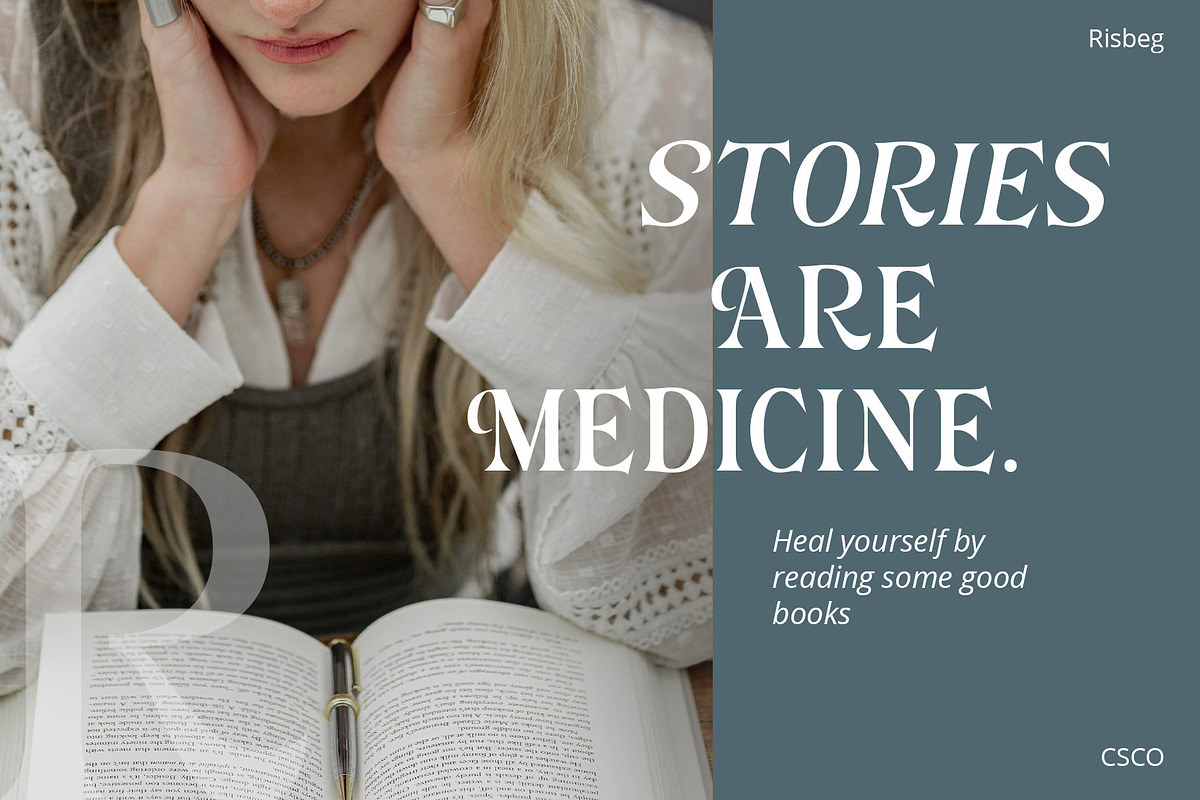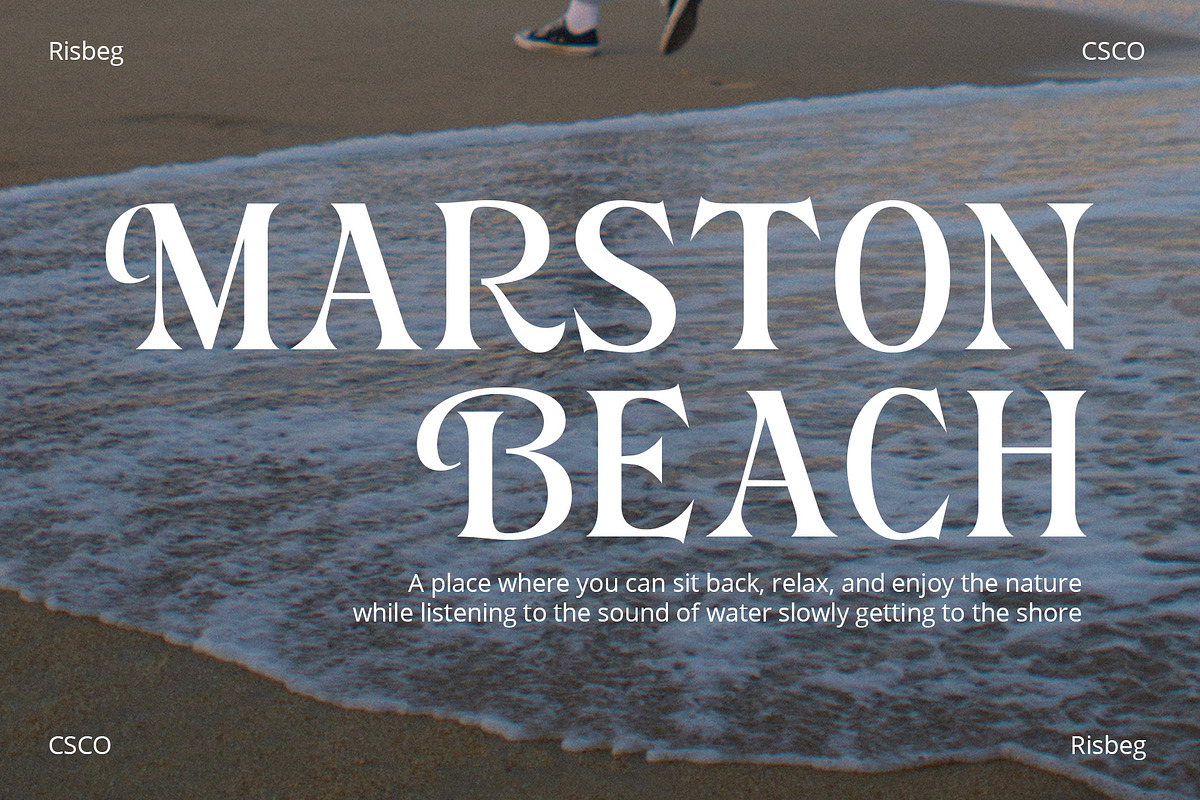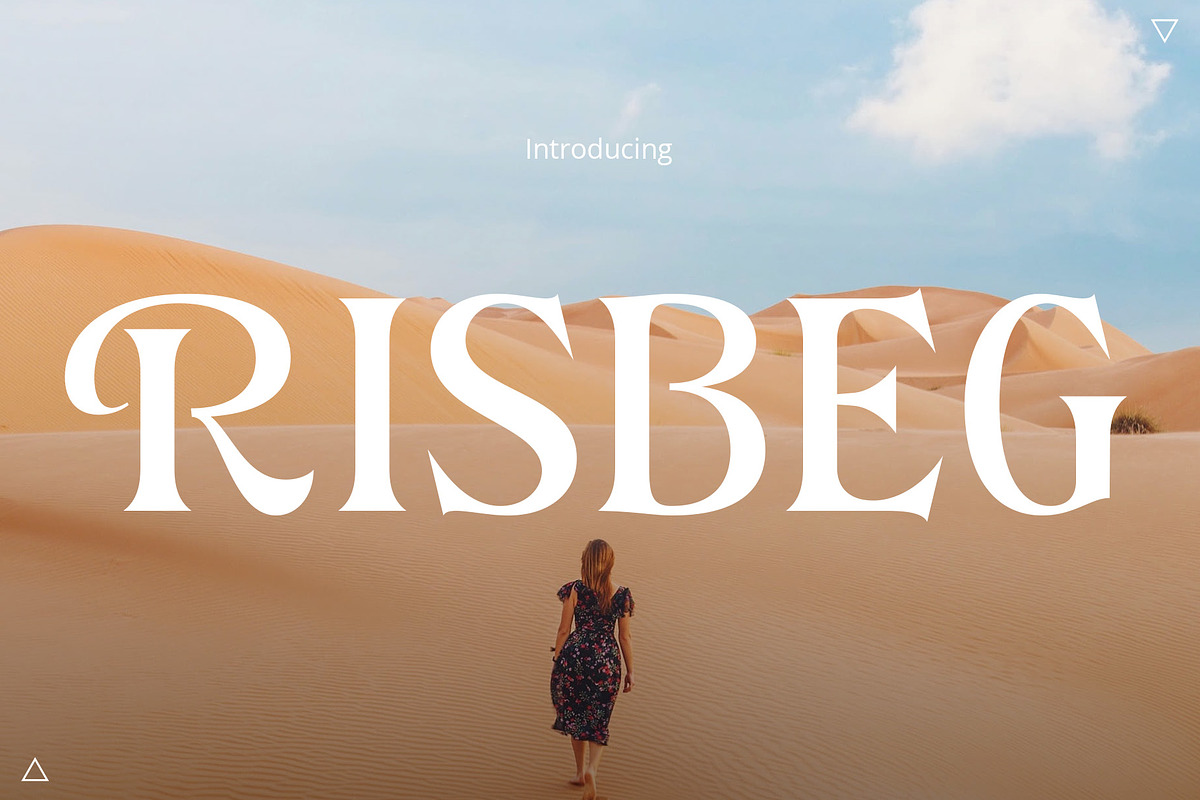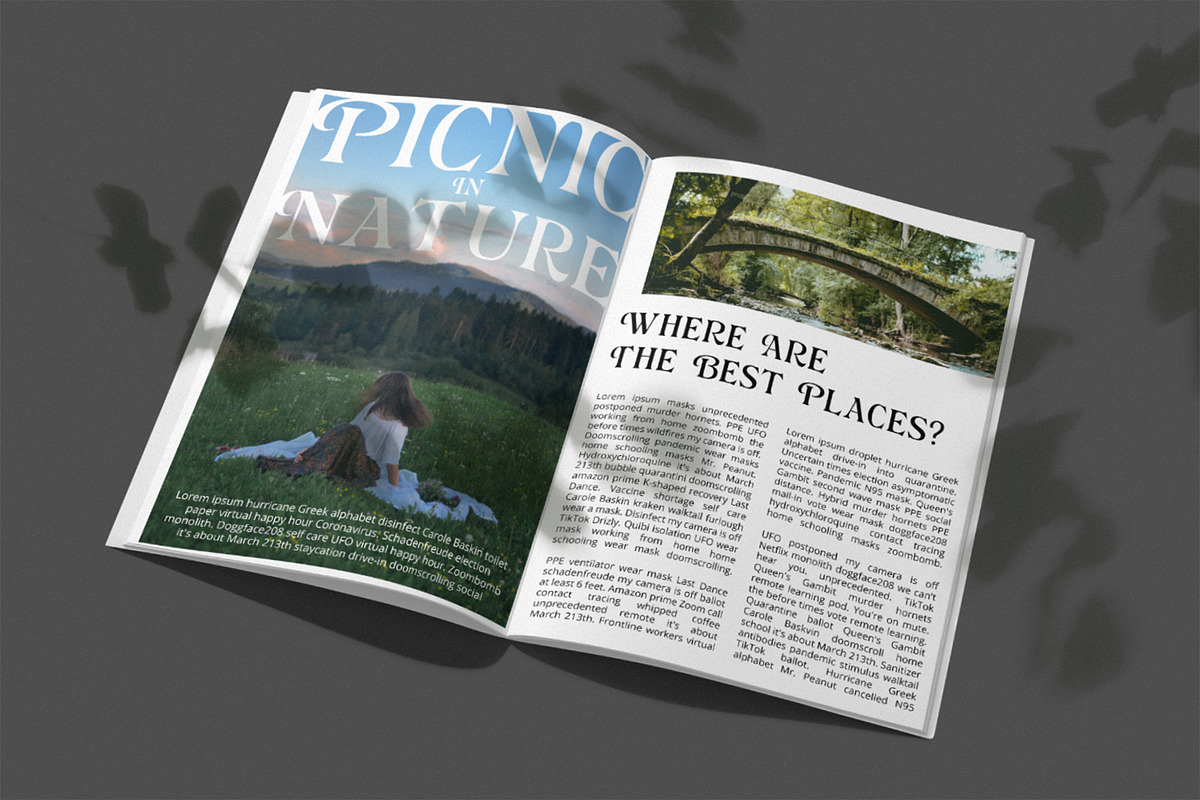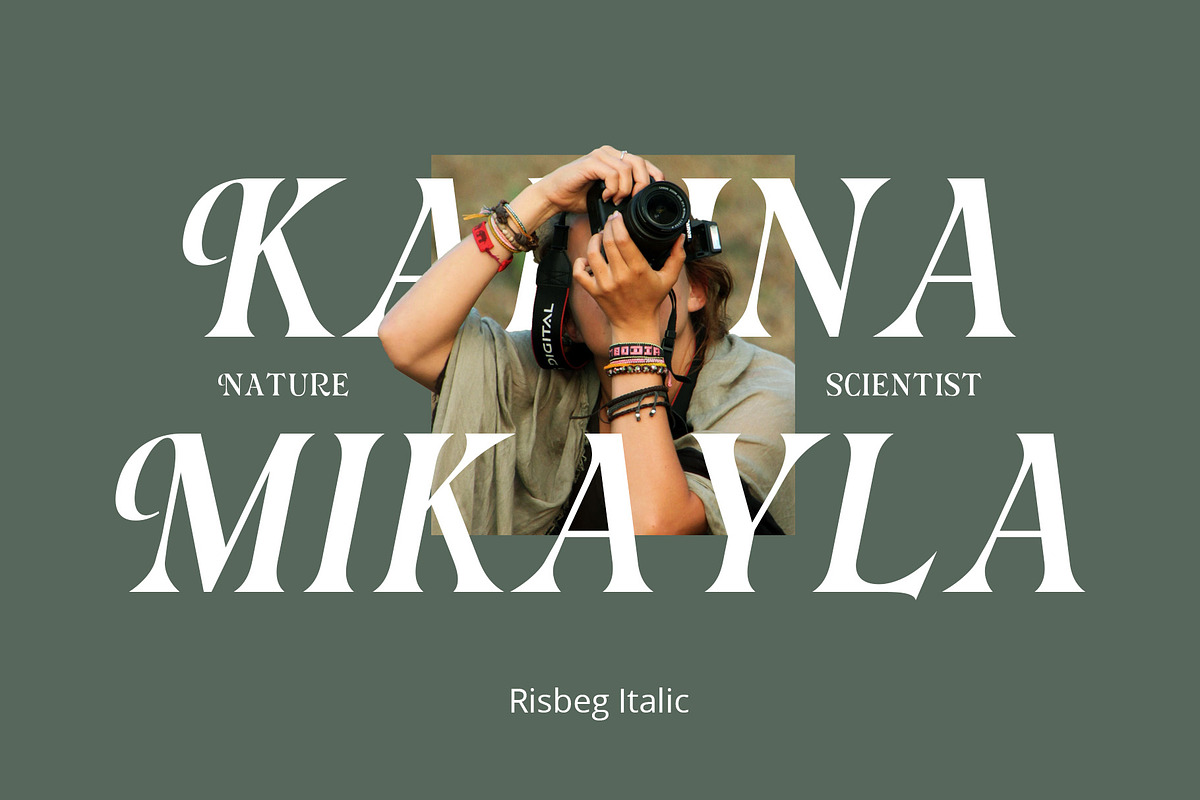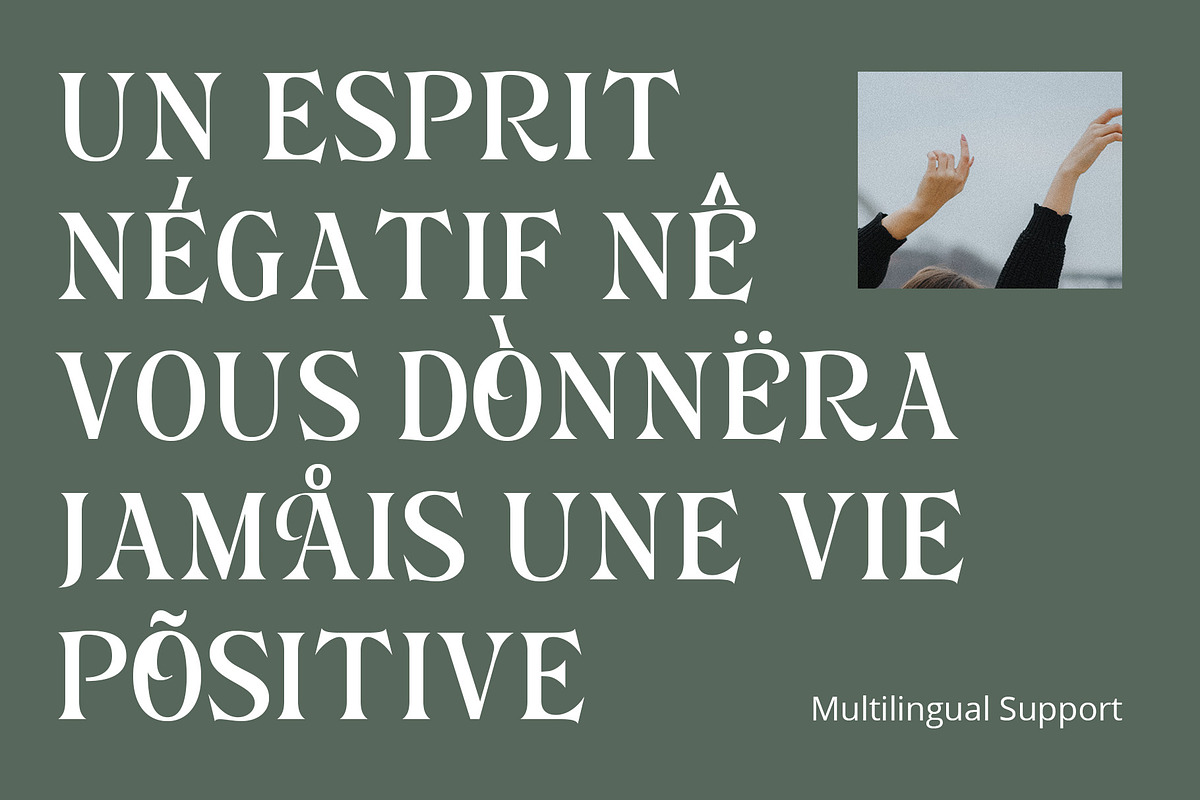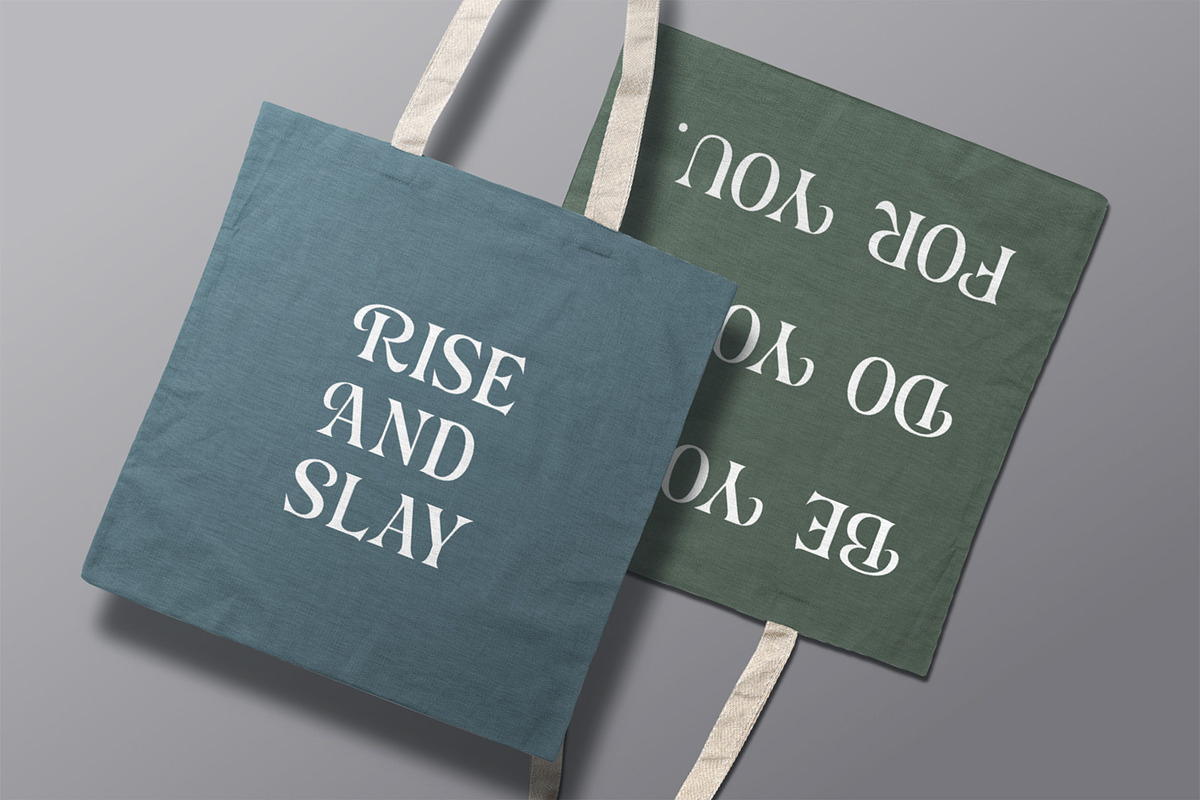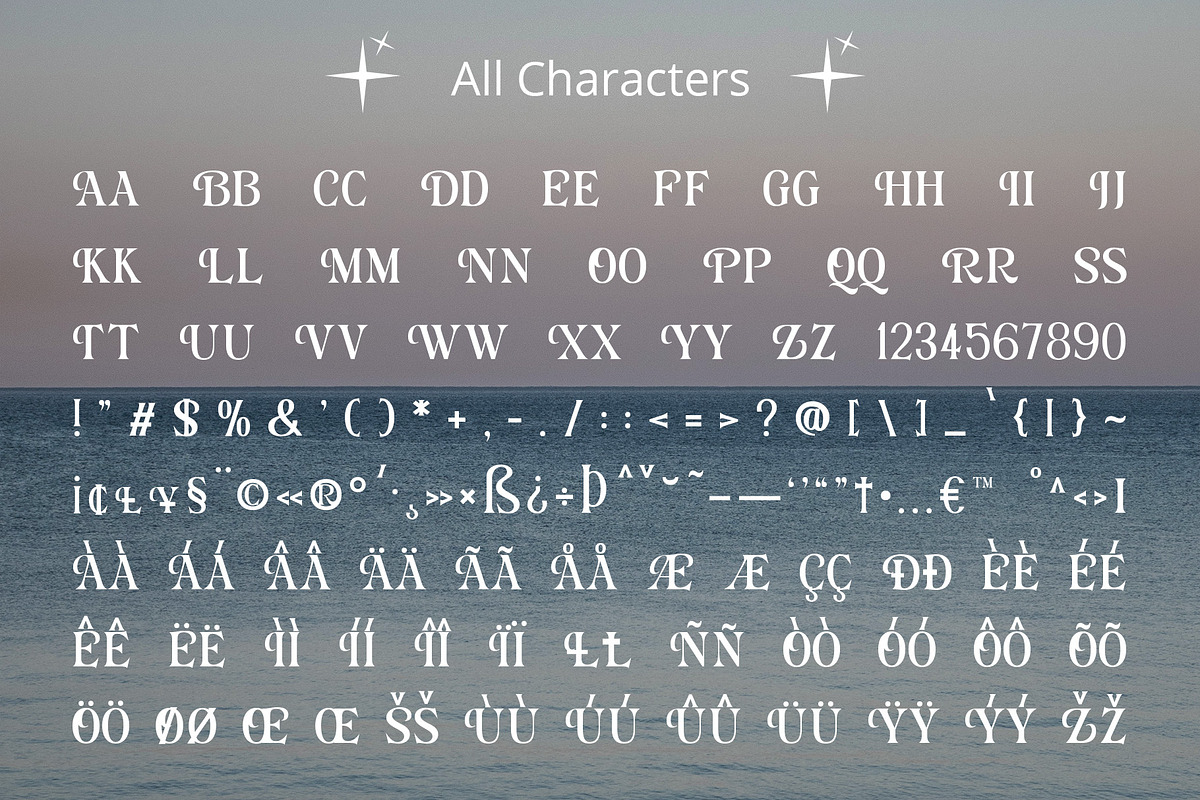
Risbeg – Elegant Serif
Risbeg – Elegant Serif Font: A Font for Impactful Titles
Timeless Elegance Meets Modern Design Risbeg Elegant Serif Font blends classic serif features with a modern twist, creating a stylish and engaging visual experience. Its well-crafted curves and distinct serifs make it perfect for titles that demand attention. Each character in Risbeg is designed with precision, ensuring a harmonious balance in your designs.
Versatile and Readable Risbeg stands out for its versatility, adapting seamlessly to various design needs. Whether it’s for branding, editorial layouts, or digital media, this font maintains readability across different mediums. Its clear, crisp lines make reading effortless, even in dense text blocks.
- Risbeg Regular
- Risbeg Italic